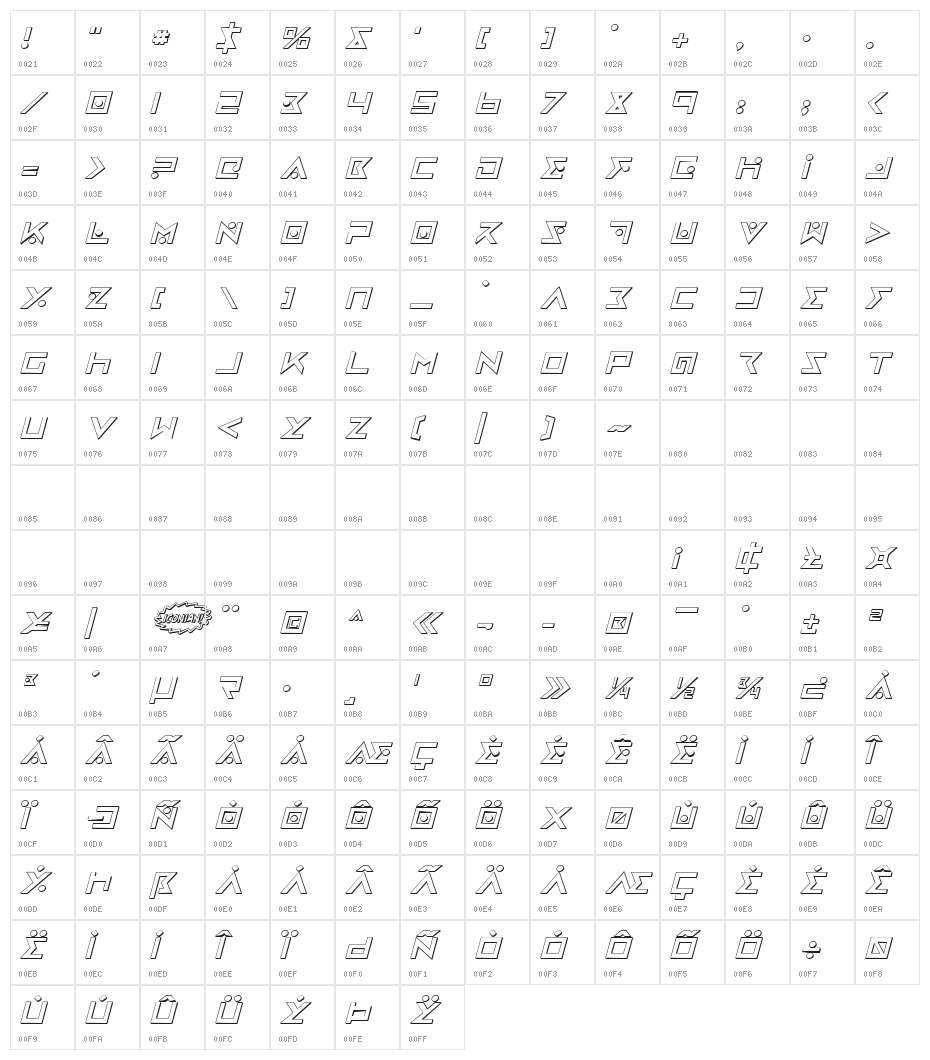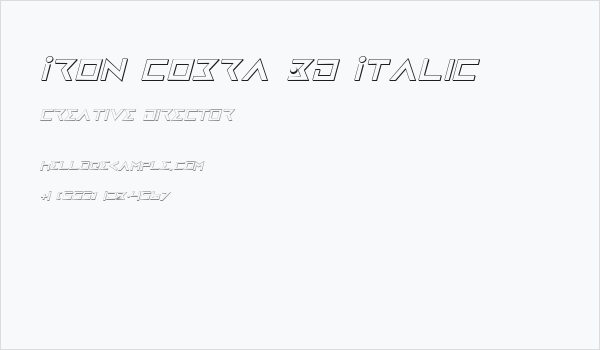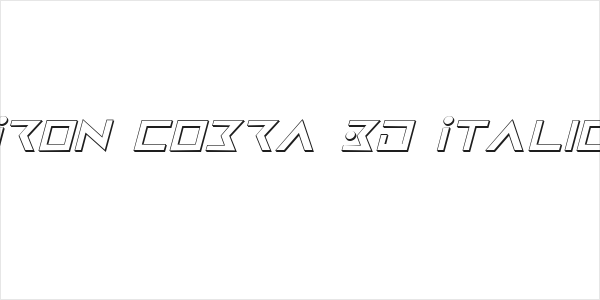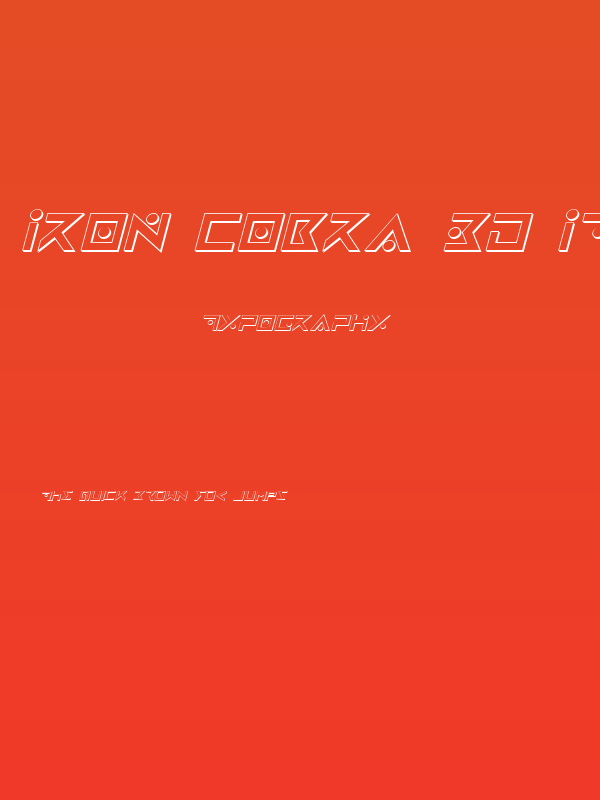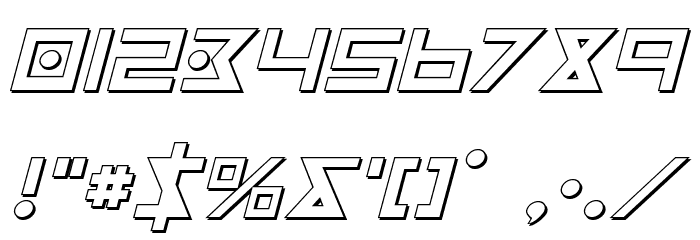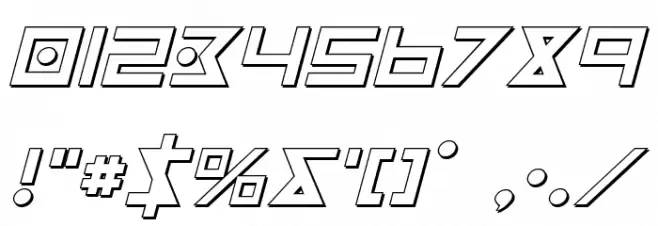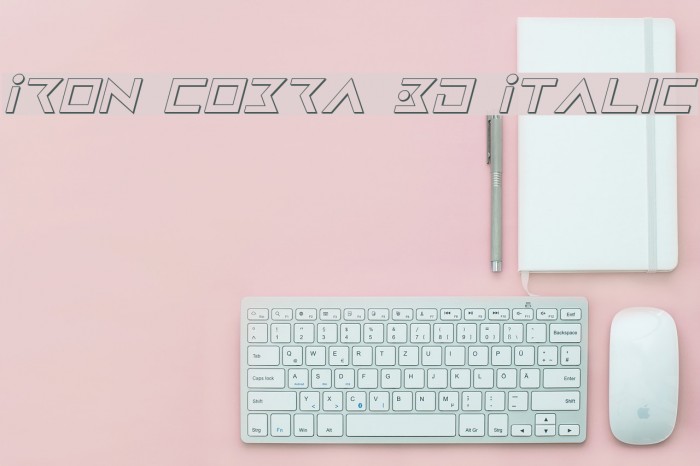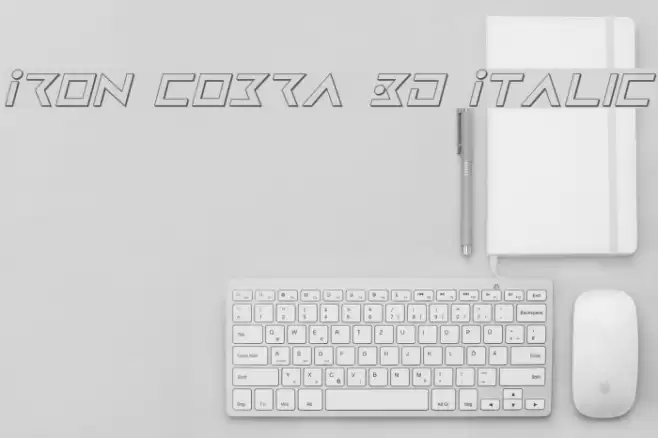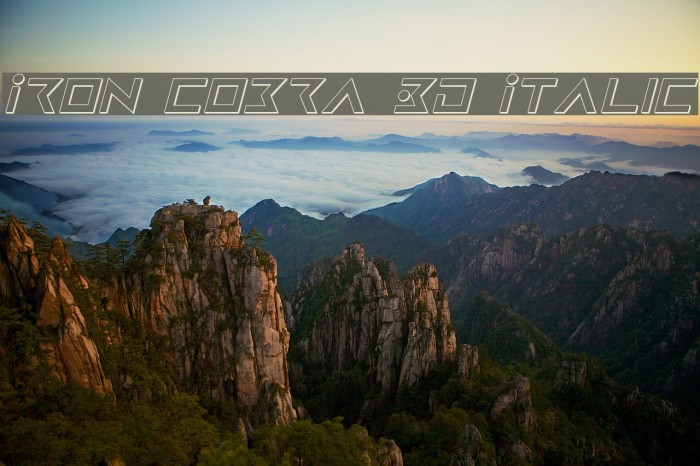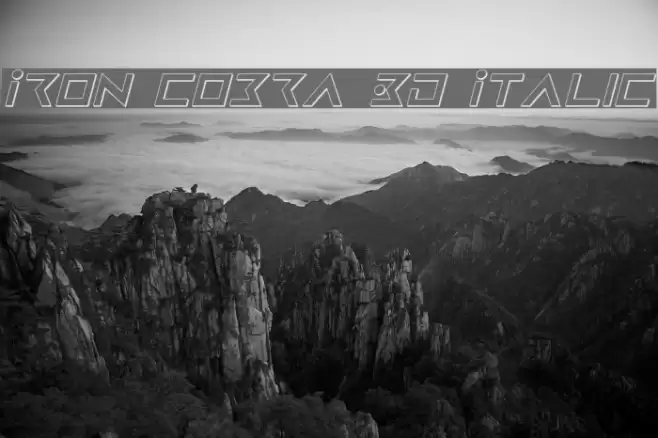
Iron Cobra 3D Italic Font
Iron Cobra 3D Italic Description
This font features a bold, geometric design with a 3D effect, characterized by angular lines and sharp edges. The italic style adds a dynamic and futuristic feel, making it stand out with its unique structure. Each character is outlined, giving it a hollow appearance that enhances the 3D illusion. The font includes uppercase and lowercase letters, numbers, and a variety of special characters, all maintaining the same distinct style. The design is consistent across all characters, with a focus on symmetry and balance, making it suitable for projects that require a modern and edgy look.
| Proposed Projects | Ideal for sci-fi themed designs, video game titles, posters, and branding that requires a modern and edgy aesthetic. |